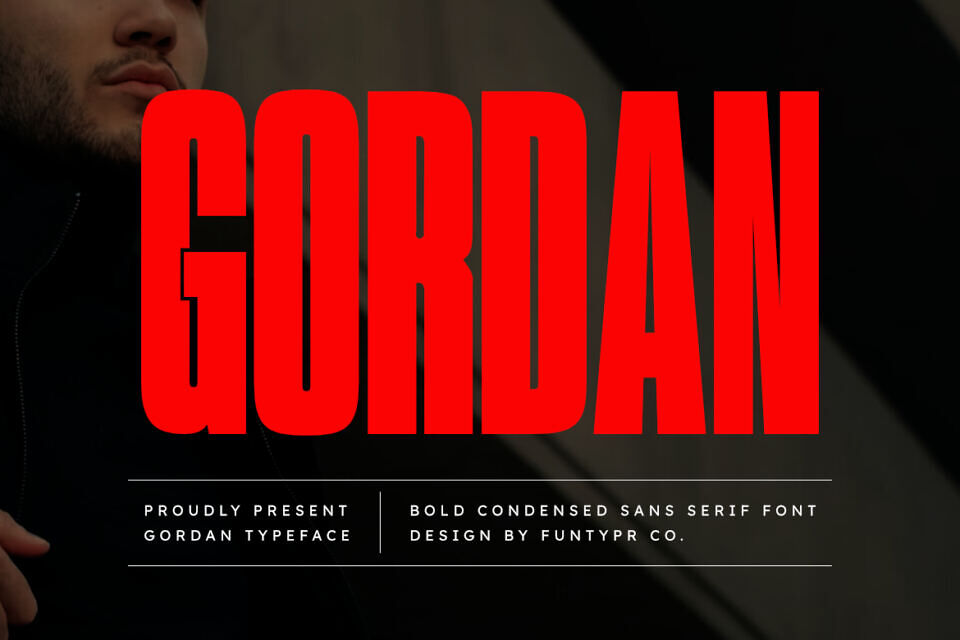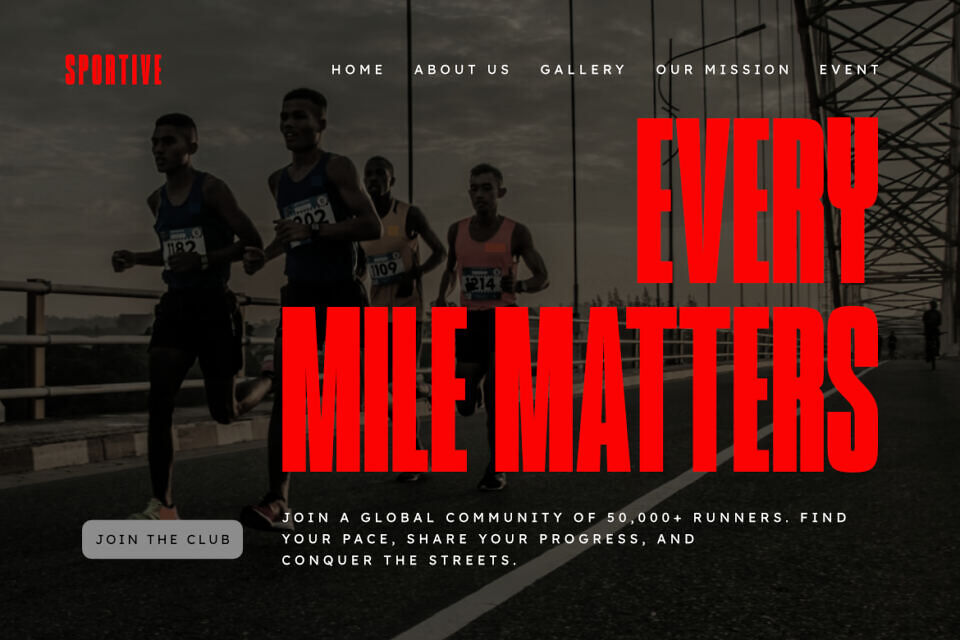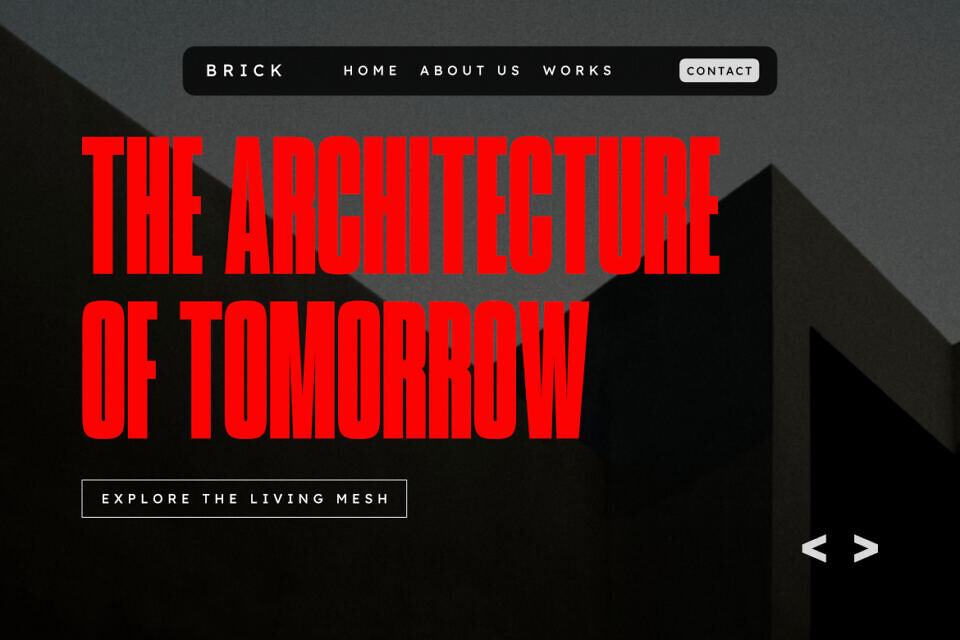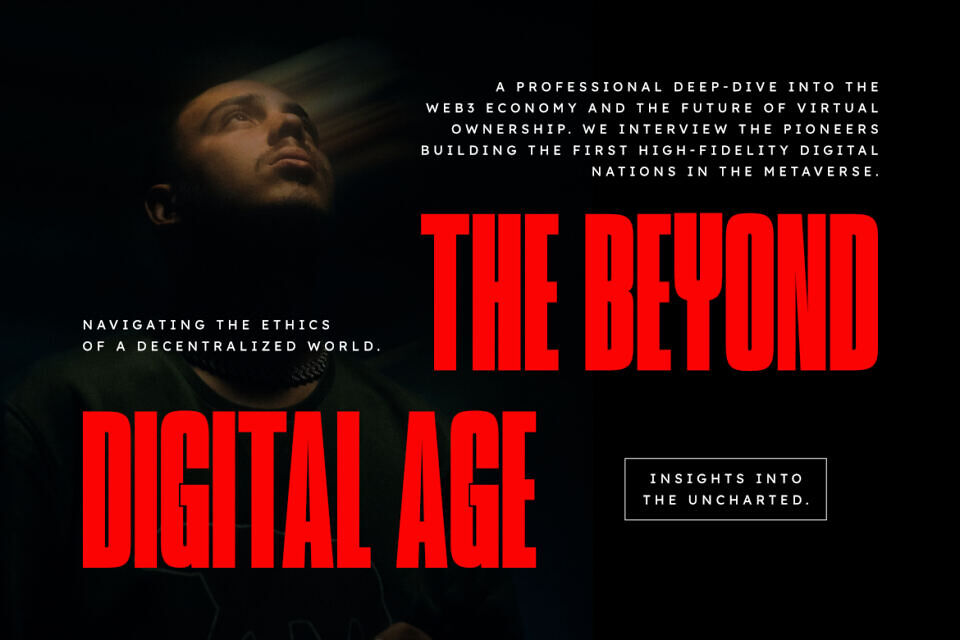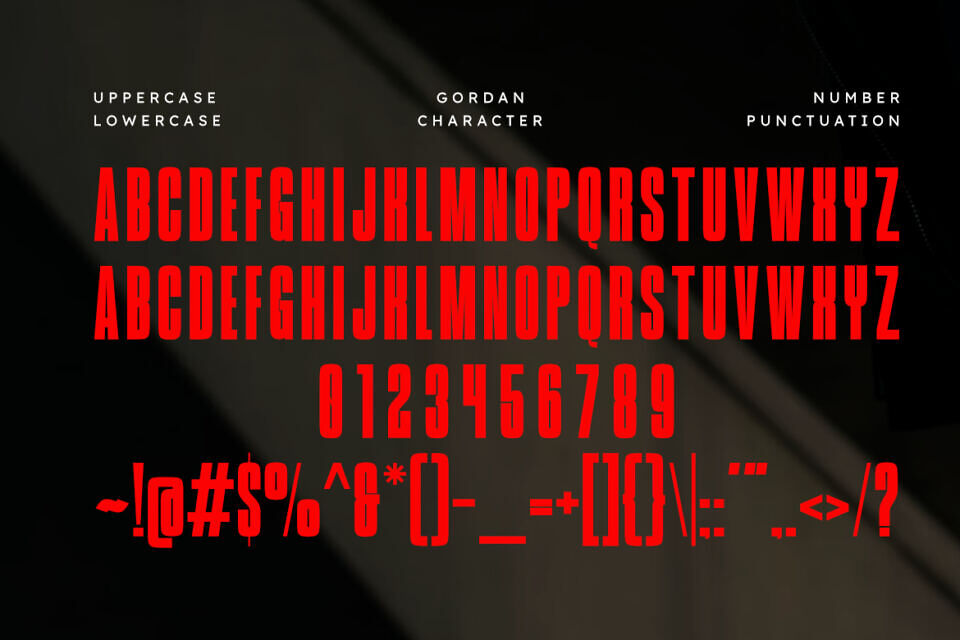
Gordan is a sophisticated and powerful bold condensed sans serif font, thoughtfully designed to capture the essence of industrial strength and contemporary storytelling. With its tall, solid structure and clean vertical lines, Gordan offers a professional aesthetic that brings a touch of commanding authority to any creative project.
Whether you are crafting a striking sports logo, a sleek automotive brand identity, or bold editorial layouts, Gordan provides a seamless blend of modern flair and timeless power.